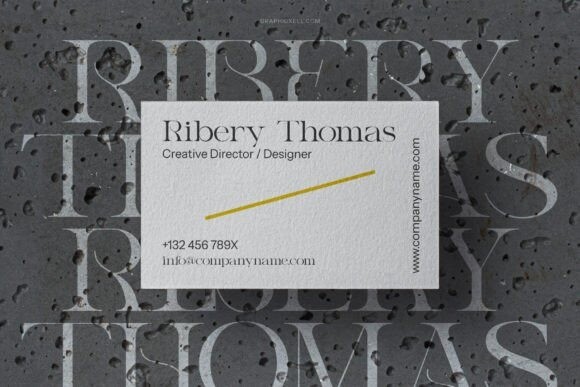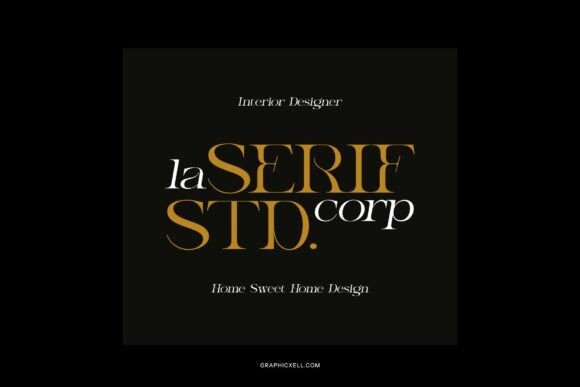
Balme Font
Balme Font is a modern serif typeface that combines elegant, clean lines with classic letter shapes. It’s perfect for creating a stylish and professional look in logos, headlines, and designs. The font is versatile, making it ideal for both digital and print projects, giving a polished and sophisticated feel.